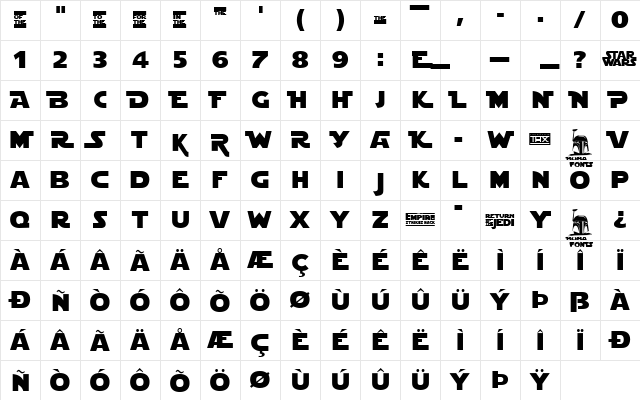
StarJedi Special Edition Regular
Design Context for StarJedi Special Edition
StarJedi Special Edition is a composed and adaptable typeface that performs quietly and consistently across a wide range of design contexts.
Pro Tip: Use StarJedi Special Edition in both headline and body roles to test its range before committing to a single application.